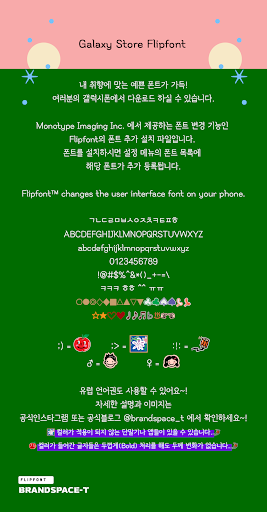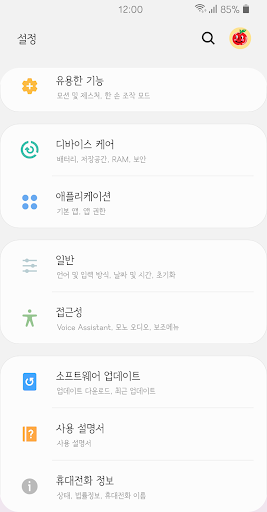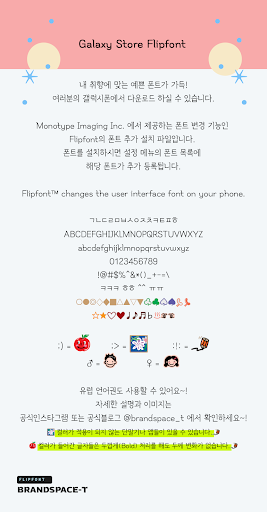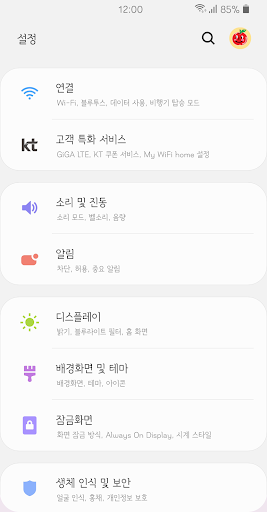
BSTMuseumSerif
This typeface is a museum concept that stands out with unfilled flexibility and refined work in a modern space. With a soft round serif, the refreshing and modern feeling doubles. Through the fusion of curves and straight lines, letters shine as objects in one space, and the neat screen and readability reduce eye fatigue. "Soon, My, My Brand" BST MuseumSerif.
+ ;) Pretty smile, the point ring of the brand space-tea! A fresh apple smile!
+ ;> "Pretty poster" Dingbet!
+ :!: "Underlined - important pencil" Dingbet!
+ ♂ (boy) ♀ (girl) There is!
+ The colored characters do not change their thickness even if they are thickened.